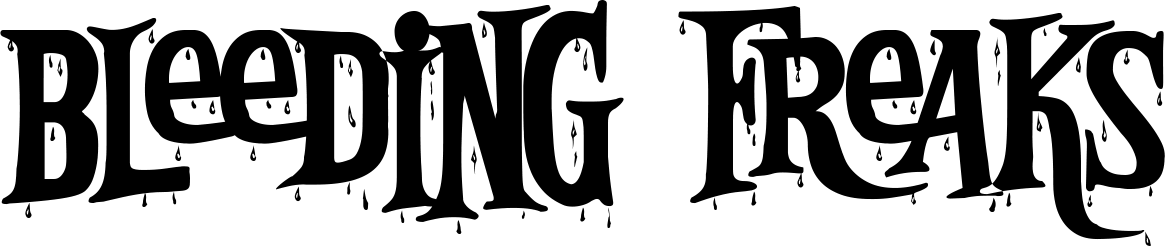
Bleeding Freaks Font
Add a hint of horror to your piece of text and complement your scary design with Bleeding Freaks! It only includes one set of alphabets, some of which are in their lowercase format while the rest are in caps.
This horror font which also offers a playful arrangement of letters ornated with swashes and rounded edges looks great on your Halloween party posters, fancy online games, T-shirts, magazines, and more. Brilliant, right?